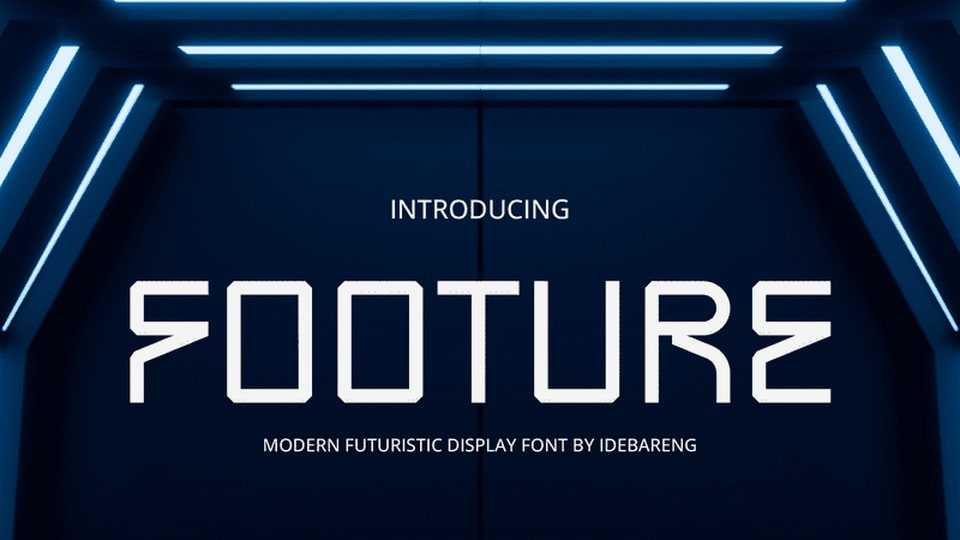
Download Footure font, the modern futuristic display typeface that will elevate your designs to the next level. This sleek and versatile font is perfect for digital and web design, film and movie titles, music and album covers, and more.
Designer: IDEBARENG